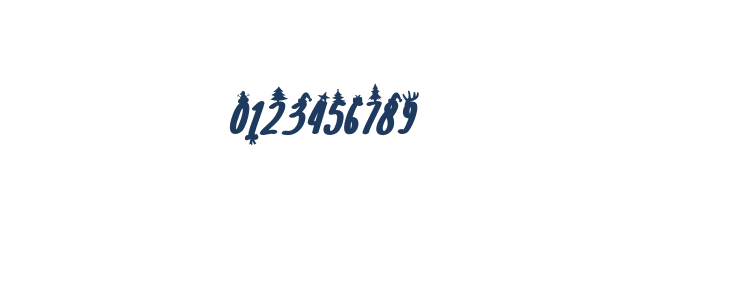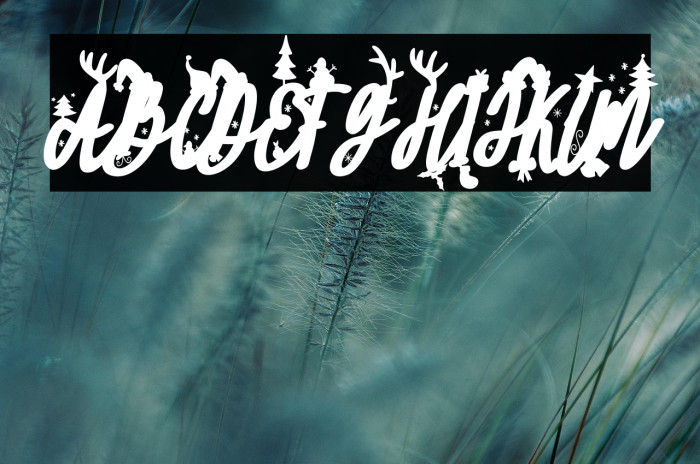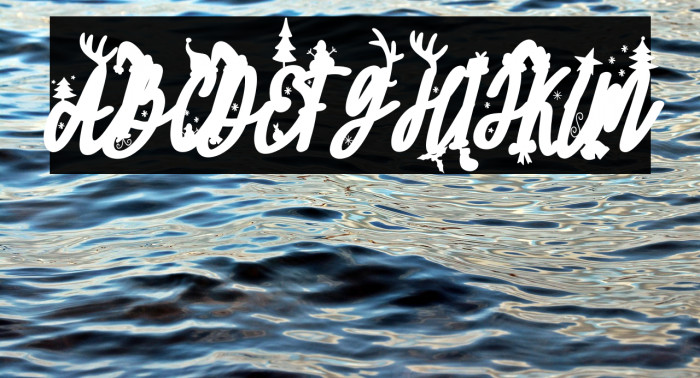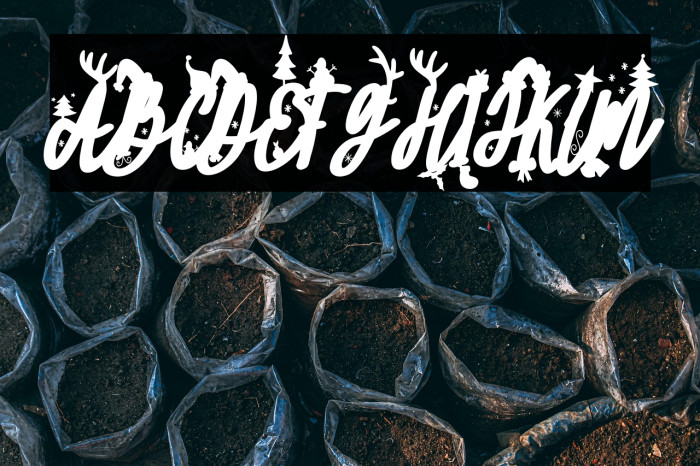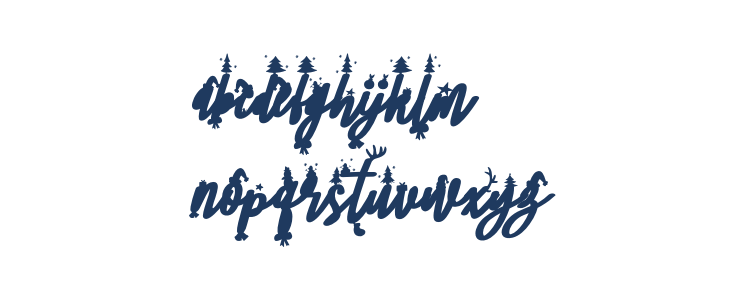
SantaFREE Font
SantaFREE Description
This decorative font features playful and festive elements, incorporating holiday-themed motifs such as antlers and Christmas trees into the letterforms. The characters are bold and dynamic, with a script-like flow that adds a whimsical touch. The uppercase and lowercase letters maintain a consistent style, with embellishments that enhance the holiday spirit. The numbers and special characters are similarly adorned, making this font ideal for seasonal designs.
| Use Case | Headlines, Logos, Seasonal Designs |
| Proposed Projects | Perfect for holiday cards, festive invitations, seasonal posters, and Christmas-themed branding. |